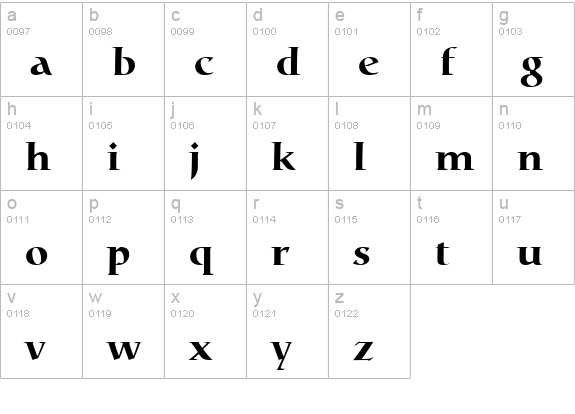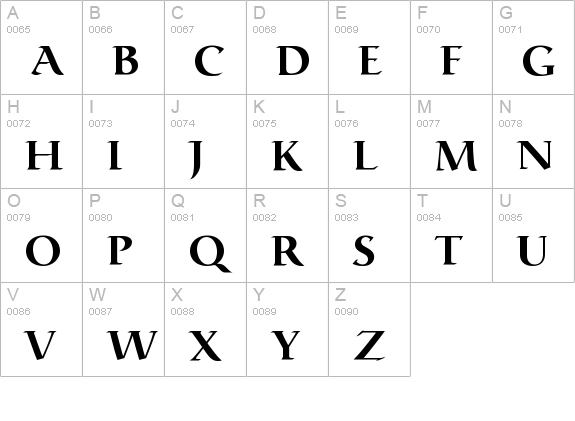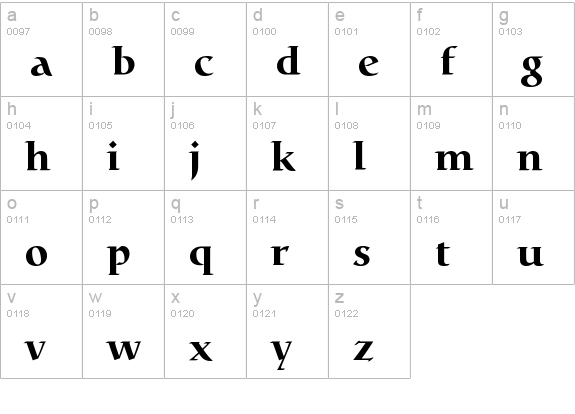
Catull Medium is a balanced, medium-weight variant in the Catull typeface family \xE2\x80\x94 well suited to sub-headlines, navigation, and balanced editorial work.
Catull Medium font is a beautiful and elegant typeface that exudes sophistication and style. With its clean lines and classic design, this font is perfect for a wide range of design projects. Whether you're creating a sleek logo, designing an eye-catching poster, or crafting a modern website, Catull Medium font is sure to make a lasting impression. The best part? Catull Medium font is available for free download at FontsMarket.com. This means you can easily access this stunning font and use it in your projects without any cost. Don't miss out on the opportunity to enhance your designs with the timeless beauty of Catull Medium font. Download it today and take your creations to the next level!